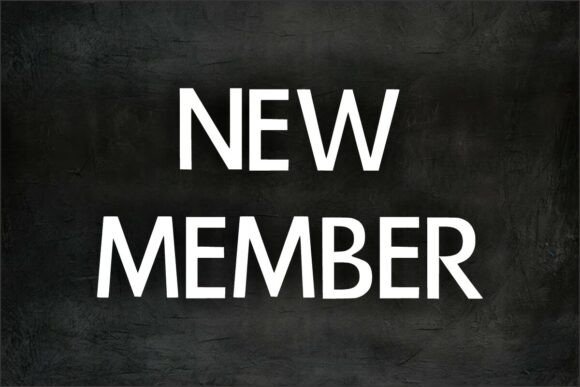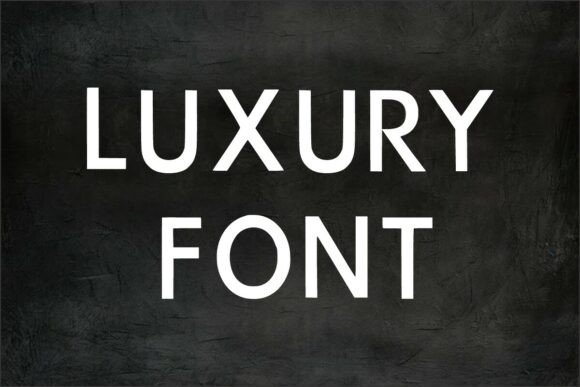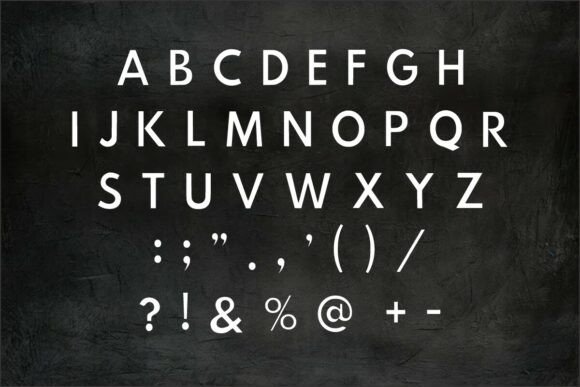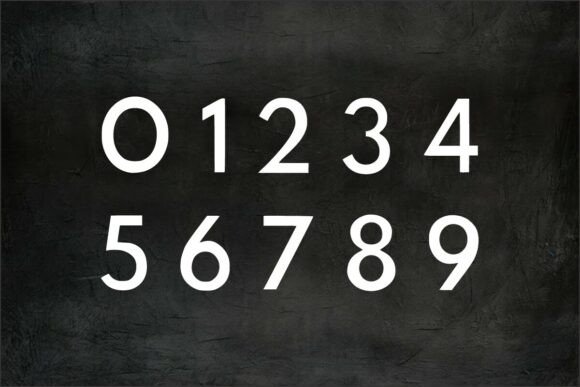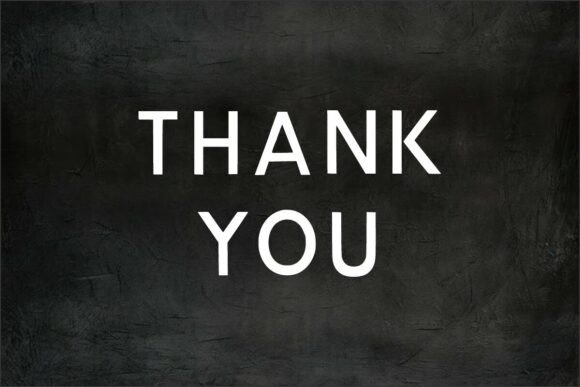
Introducing December Font: The Perfect Choice for Modern Designs
In the world of typography, a font can make or break a design. With the right font, you can convey the tone and personality of your brand, product, or project. If you’re looking for a font that exudes a sense of modernity, simplicity, and elegance, look no further than December Font. This bold, sans-serif display font is perfect for designers and crafters who want to add a relaxed touch to their creations.
What is December Font?
December typeface is a bold, modern, simple, and elegant sans-serif display font. Its informal style and casual vibe make it an excellent choice for designs that require a laid-back feel. Whether you’re working on product packaging, invitations, quotes, t-shirts, labels, posters, or logos, December Font is the perfect fit.
Key Features of December Font
- Bold and Modern: December Font is a bold and modern sans-serif font that is sure to grab attention.
- Simple and Elegant: Despite its boldness, December Font has a simple and elegant design that works well in a variety of contexts.
- Informal Style: The font’s informal style and casual vibe make it perfect for designs that require a relaxed touch.
- Versatile: December Font is suitable for a wide range of design projects, from product packaging to logos.
Use Cases for December Font
December Font is a versatile font that can be used in a variety of design projects. Here are some use cases where December Font shines:
- Product Packaging: Add a modern and elegant touch to your product packaging with December Font.
- Invitations: Create beautiful and stylish invitations for weddings, parties, and other events.
- Quotes and Posters: Use December Font to create eye-catching quotes and posters that grab attention.
- T-Shirts and Apparel: Design stylish and modern t-shirts and apparel with December Font.
- Logos and Branding: Use December Font to create a bold and modern logo that represents your brand.
Why Choose December Font?
With so many fonts available, why choose December Font? Here are some reasons why December Font stands out:
- Unique Style: December Font has a unique style that sets it apart from other fonts.
- Easy to Read: Despite its boldness, December Font is easy to read, making it perfect for designs that require a clear message.
- Customizable: December Font is highly customizable, allowing you to adjust the font size, color, and style to fit your design needs.
Tips for Using December Font
Here are some tips for using December Font in your designs:
- Use it Boldly: December Font is a bold font, so use it boldly to make a statement.
- Experiment with Colors: Try out different colors to see what works best with December Font.
- Pair it with Other Fonts: Experiment with pairing December Font with other fonts to create a unique look.
In conclusion, December Font is a bold, modern, simple, and elegant sans-serif display font that is perfect for designers and crafters who want to add a relaxed touch to their creations. With its informal style and casual vibe, December Font is suitable for a wide range of design projects, from product packaging to logos. Whether you’re a seasoned designer or a crafty DIY enthusiast, December Font is a great choice for your next design project.